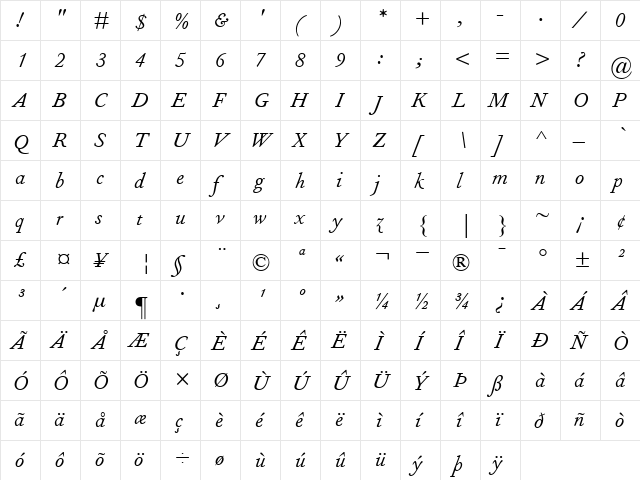
FournierMT RomanItalic
Design Context for FournierMT Typeface
FournierMT is a composed and adaptable typeface that performs quietly and consistently across a wide range of design contexts. Its italic angle brings a sense of urgency and motion to the letterforms.
Pro Tip: Try FournierMT for annotation and caption copy alongside an upright companion — the contrast in angle creates a dynamic but ordered typographic system.